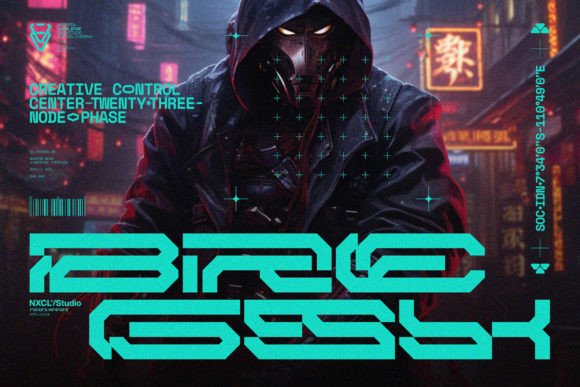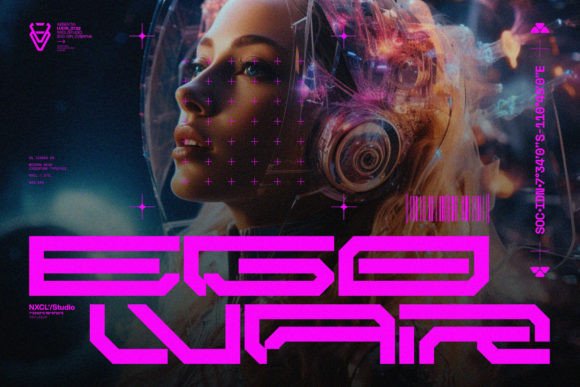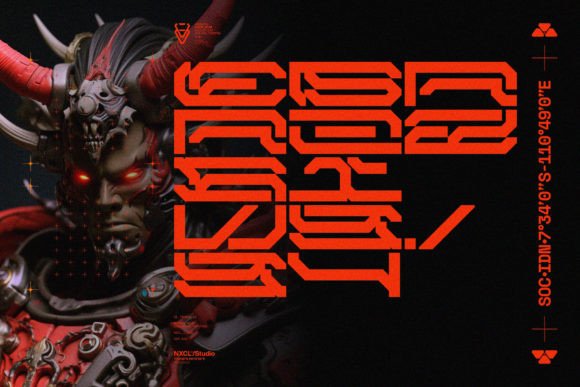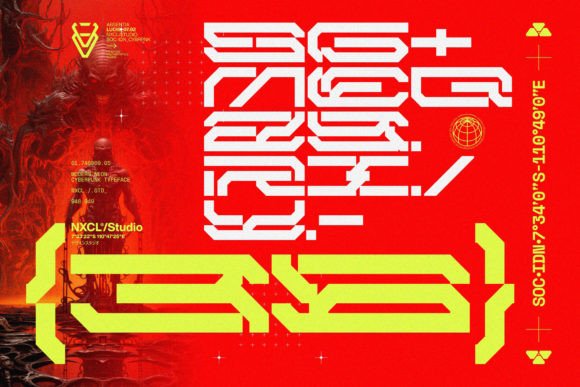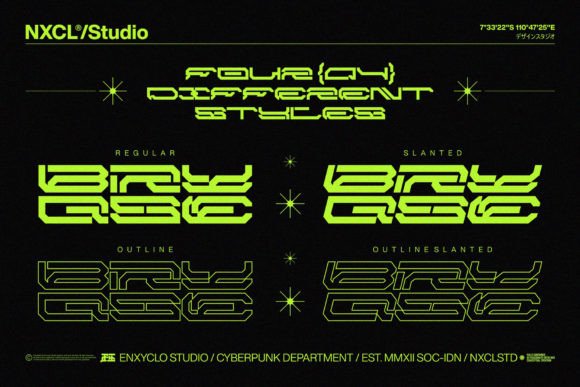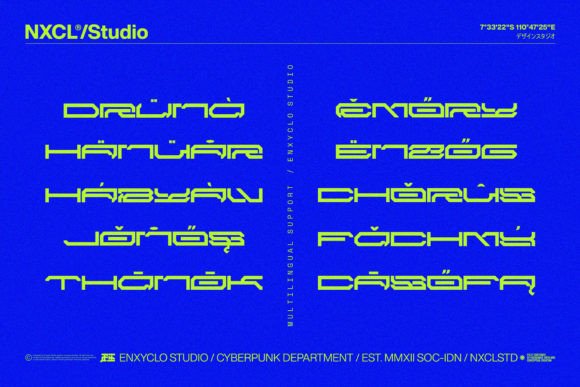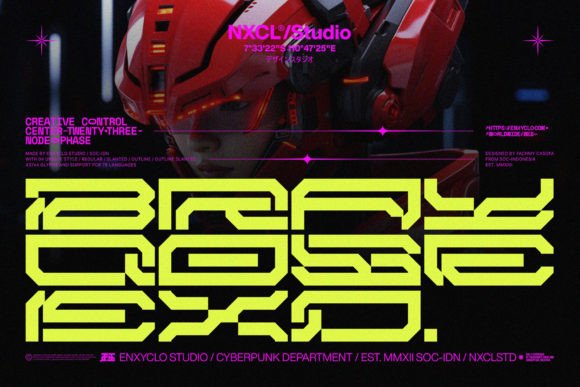
Brayqose Expanded Font: Elevate Your Designs with a Futuristic Twist
In the realm of typography, fonts play a pivotal role in shaping the visual identity of a design. With numerous options available, finding the perfect font that resonates with your creative vision can be a daunting task. However, if you’re looking to infuse your projects with a modern, cyberpunk-inspired aesthetic, look no further than the Brayqose Expanded Font. This futuristic techno mecha expanded font is engineered to transcend conventional design boundaries, offering a unique blend of innovation and sophistication.
The Essence of Brayqose Expanded Font
BRAYQOSE EXPANDED is not your ordinary font. It’s a modern cyberpunk futuristic techno mecha expanded font that takes your creativity to the next level. Its futuristic aesthetics bring a whole new dimension to your designs, making them stand out. Whether you’re working on a website, poster, logo, or any other project, this font adds that extra touch of innovation and sophistication. The design of Brayqose Expanded is meticulous, with clean lines, sharp edges, and a futuristic vibe that is hard to ignore.
Key Features of Brayqose Expanded Font
- Unique Cyberpunk Aesthetic: Brayqose Expanded boasts a distinctive cyberpunk style that sets it apart from traditional fonts. Its futuristic look is perfect for designers aiming to create a bold and avant-garde visual statement.
- Expanded and Versatile: As an expanded font, Brayqose offers a wide range of applications. Its versatility ensures that it can be used in various design contexts, from digital interfaces to print materials.
- Highly Legible: Despite its futuristic design, Brayqose Expanded maintains high legibility, making it suitable for body text as well as headlines. This ensures that your message is conveyed clearly and effectively.
- Customizable: The font comes with a range of customization options, allowing designers to tweak and adjust the font to fit their specific design needs.
Applications of Brayqose Expanded Font
The versatility of Brayqose Expanded Font makes it an excellent choice for a multitude of design projects. Here are some of the areas where this font truly shines:
- Web Design: For website designs that demand a modern edge, Brayqose Expanded can be used for headings, titles, and even body text to create a cohesive and futuristic look.
- Graphic Design: Posters, flyers, brochures, and other print materials can benefit from the bold and futuristic aesthetic of Brayqose Expanded, making your designs pop.
- Branding and Logo Design: Creating a memorable brand identity is crucial, and Brayqose Expanded can help you achieve that. Its unique style ensures that your logo stands out and leaves a lasting impression.
- Digital Art and Illustration: For digital artists and illustrators, Brayqose Expanded offers a wealth of creative possibilities. Use it to add text and captions to your artwork, giving it a professional and polished look.
Tips for Using Brayqose Expanded Font Effectively
To maximize the impact of Brayqose Expanded Font in your designs, consider the following tips:
- Mix and Match: Combine Brayqose Expanded with complementary fonts to create visual hierarchy and add depth to your designs.
- Adjust Font Sizes: Experiment with different font sizes to emphasize certain elements and create a focal point in your design.
- Play with Colors: The futuristic vibe of Brayqose Expanded pairs well with bold and vibrant colors. Don’t be afraid to experiment with color schemes that enhance the font’s aesthetic.
- Consider Context: Ensure that the font aligns with the overall theme and message of your project. Brayqose Expanded is perfect for projects that require a modern and edgy feel.
| Author | Enxyclo |
Brayqose Expanded Font is a game-changer for designers seeking to infuse their projects with a modern, cyberpunk-inspired aesthetic. Its unique design, versatility, and high legibility make it an excellent choice for a wide range of applications. Whether you’re working on a website, poster, logo, or digital art, Brayqose Expanded can elevate your designs to new heights. Embrace the future of typography with Brayqose Expanded and take your creativity to the next level.